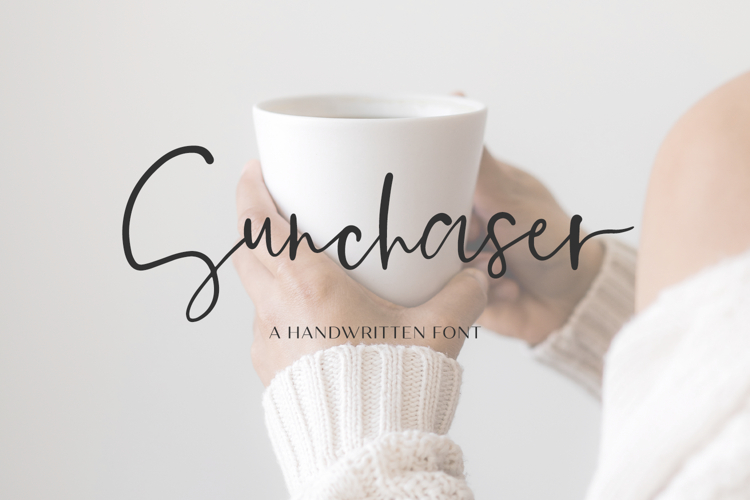
Introducing Sunchaser Script, a handwritten signature style font. This chic, stylish font features a messy, casual look, mimicking handwriting.
Sunchaser Script is best for:
- logos + branding, like beauty, cosmetics, and health brands
- website design + website accents - think design blogs, travel blogs, fashion blogs, & more
- 26 lowercase alternate characters